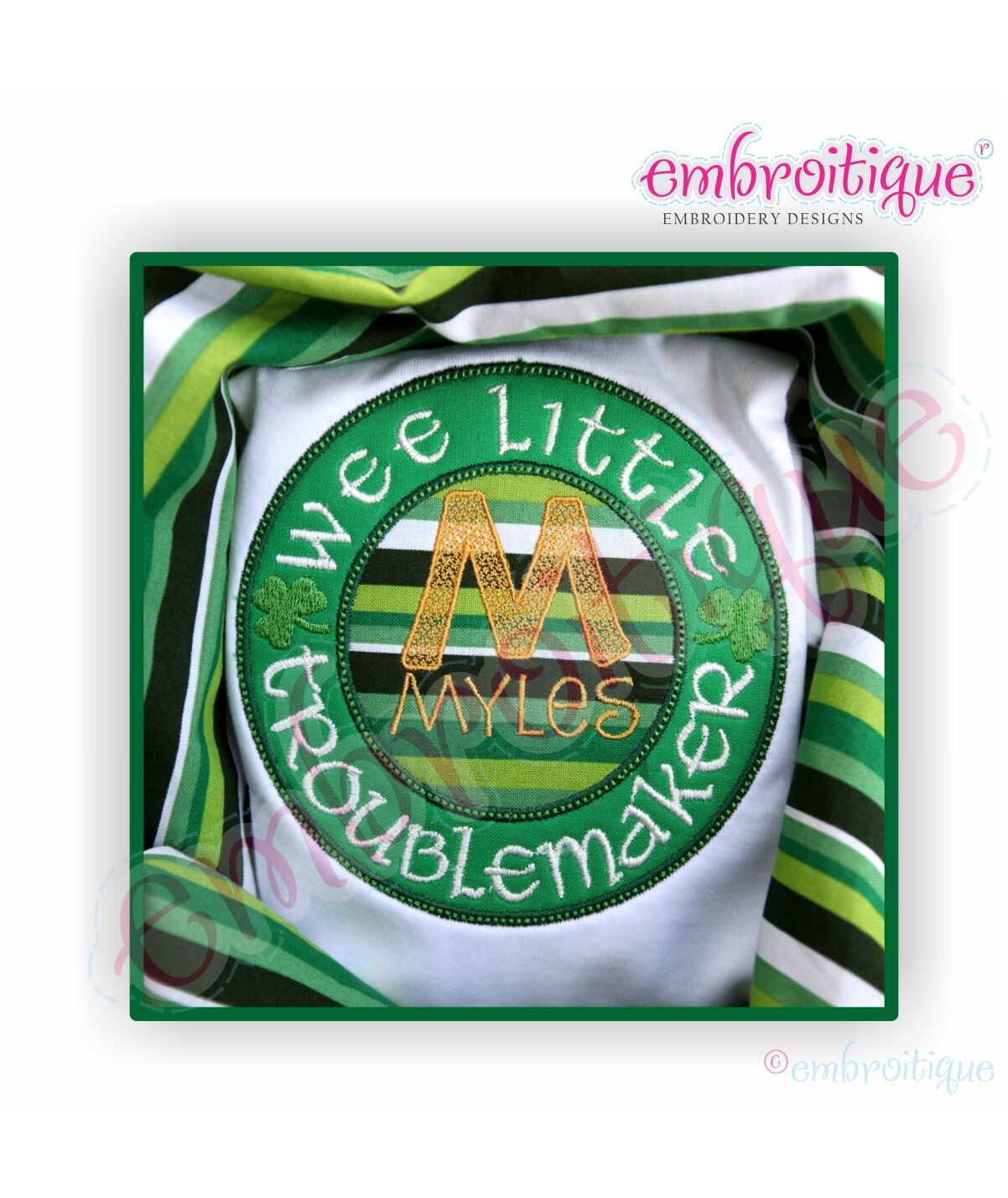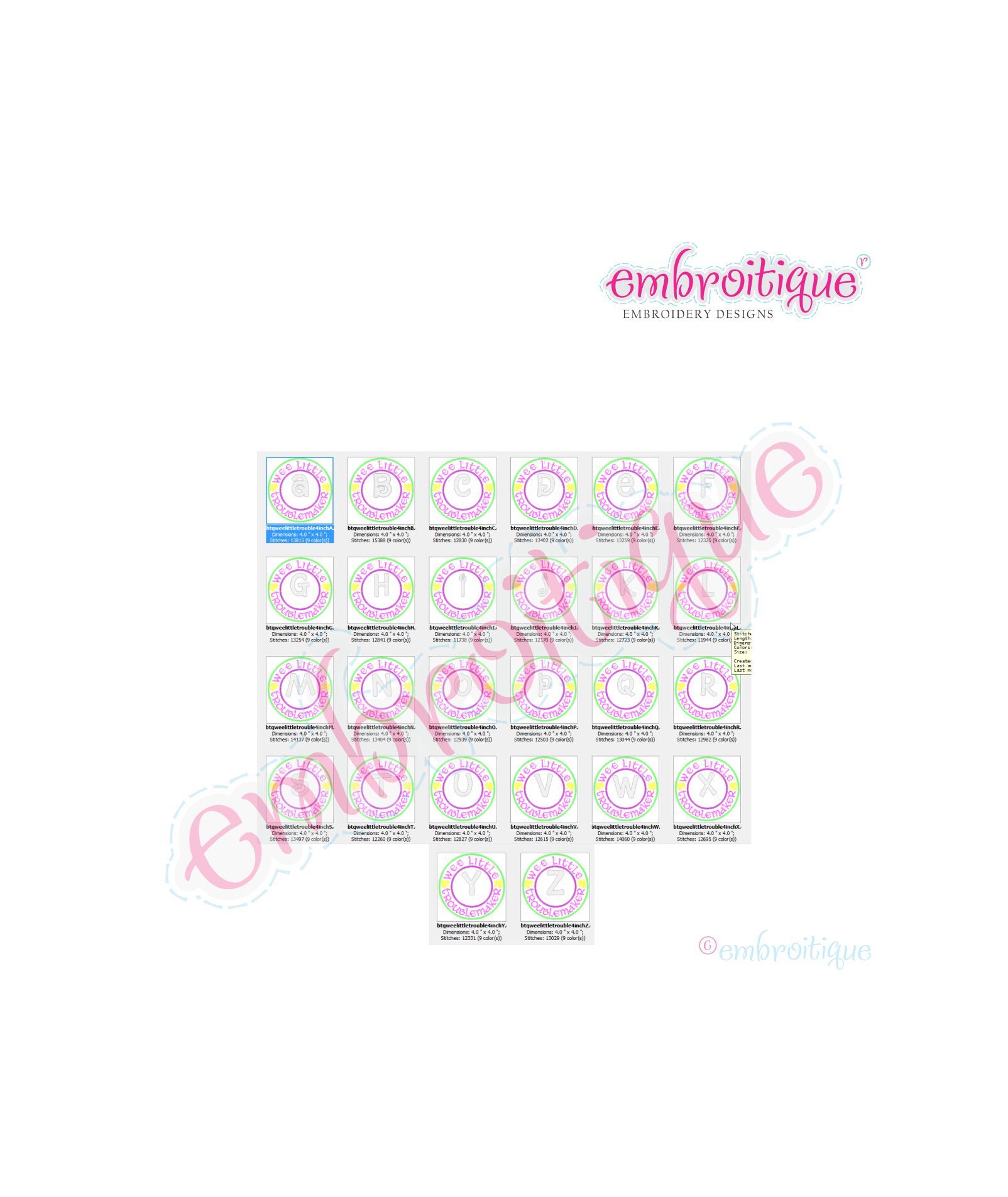
Wee Little Troublemaker Monogram Font Applique Set - Irish St. Patrick's Day
Just love this one for my son! I know lots of little boys and girls this would be PERFECT for! The name "myles" is a set that i haven't finished digitizing yet - but the large initial letters are placed higher to leave room for a name with any of our fonts! The last stitch (a decorave running stitch around the outer circle) was put in place so you could add a piece of fabric to the back of the design to cover up the itchies :) Enjoy!